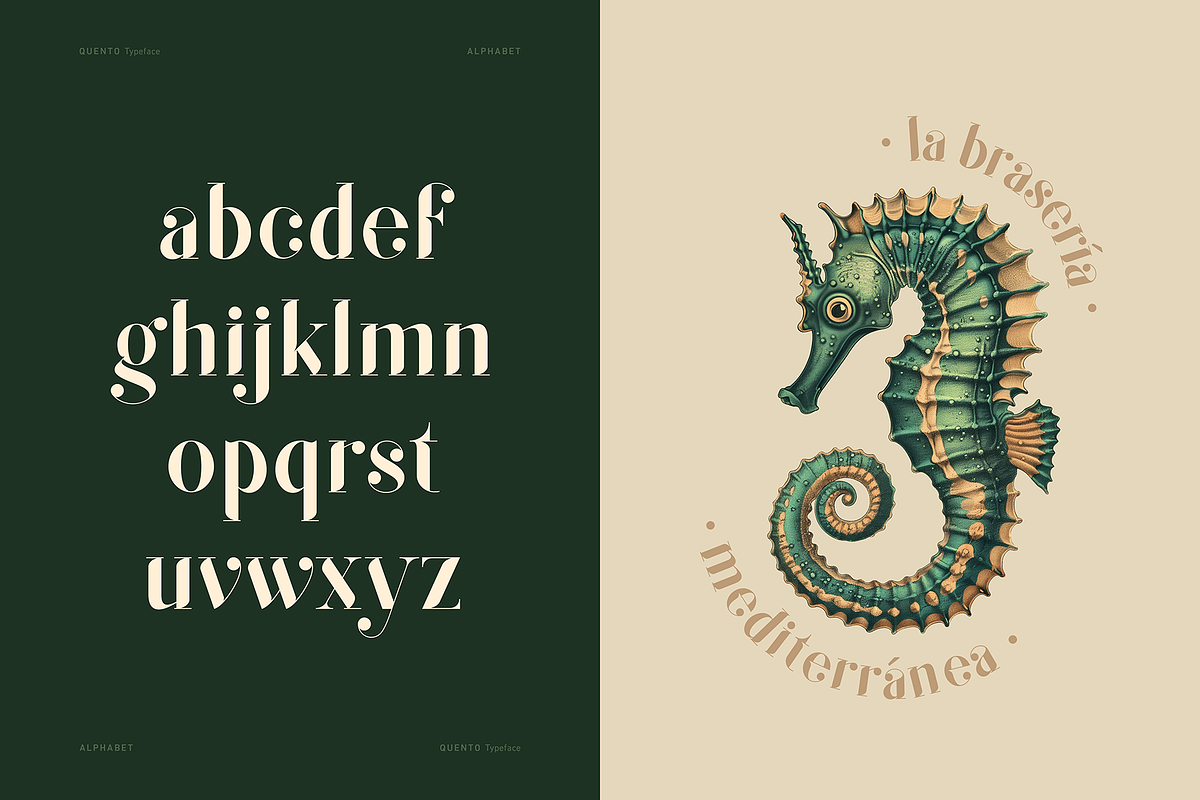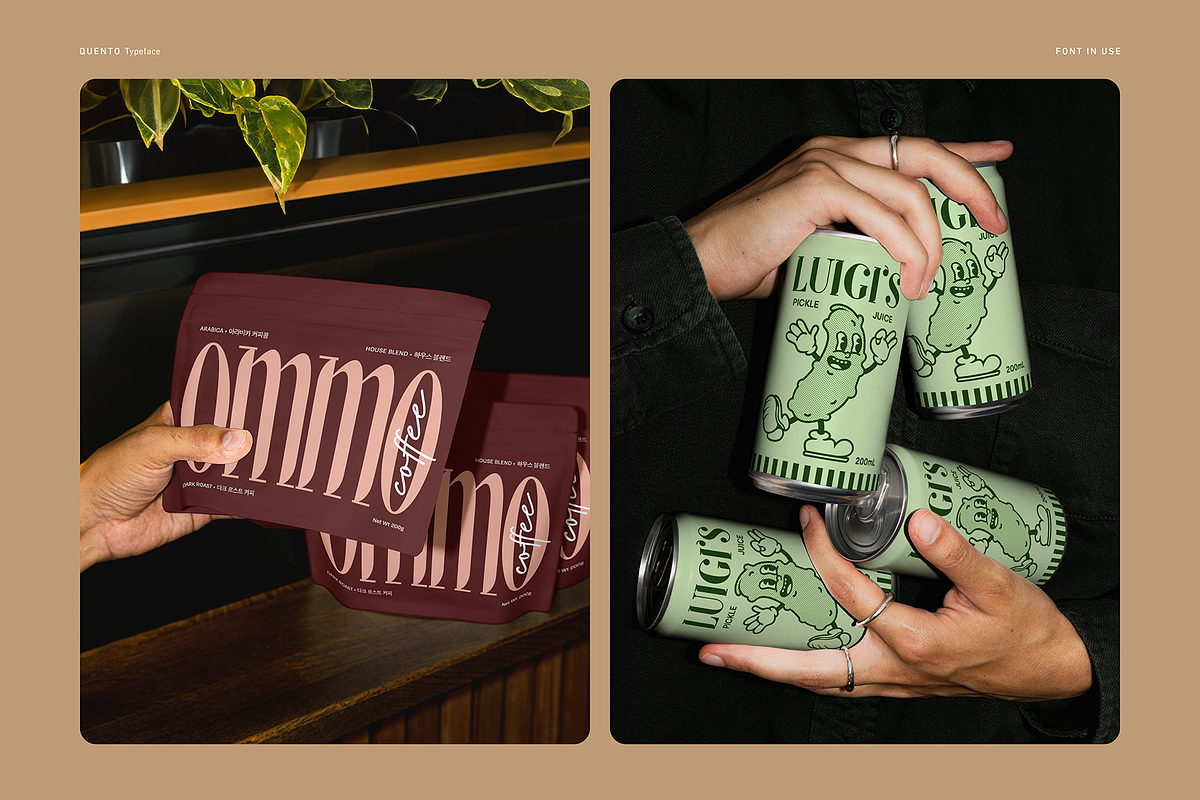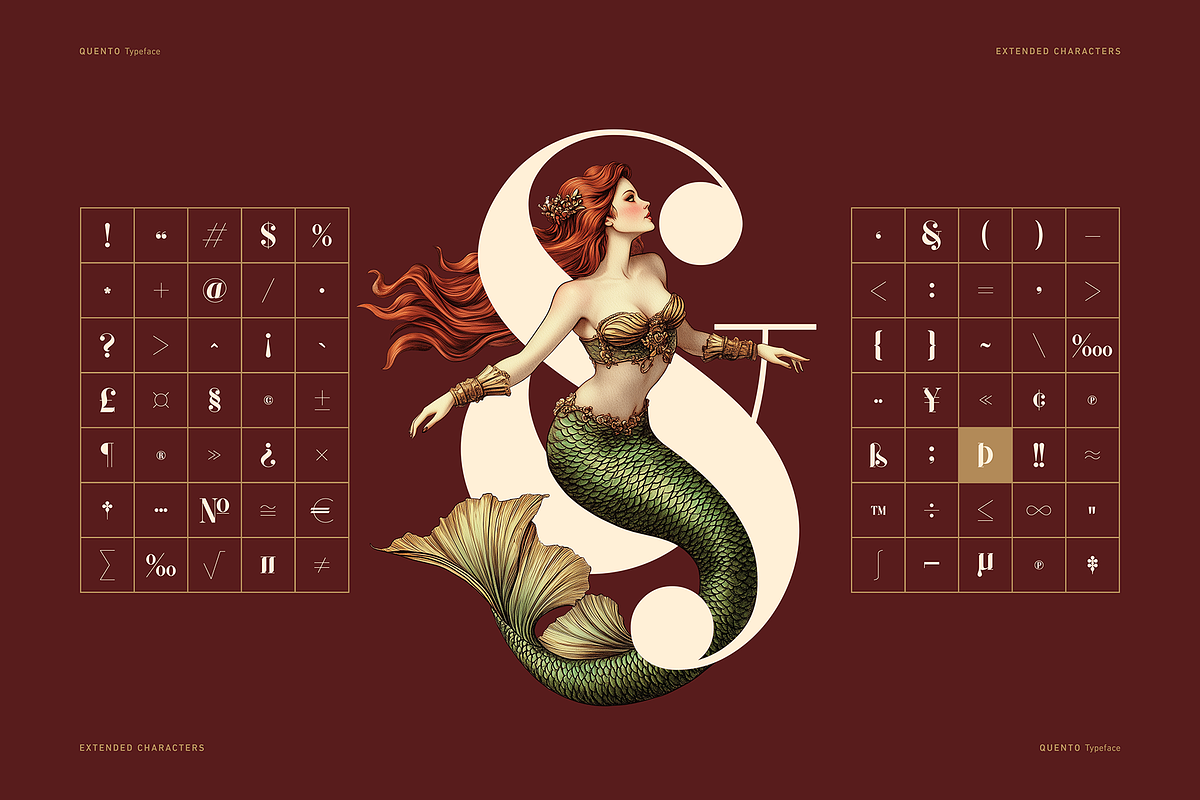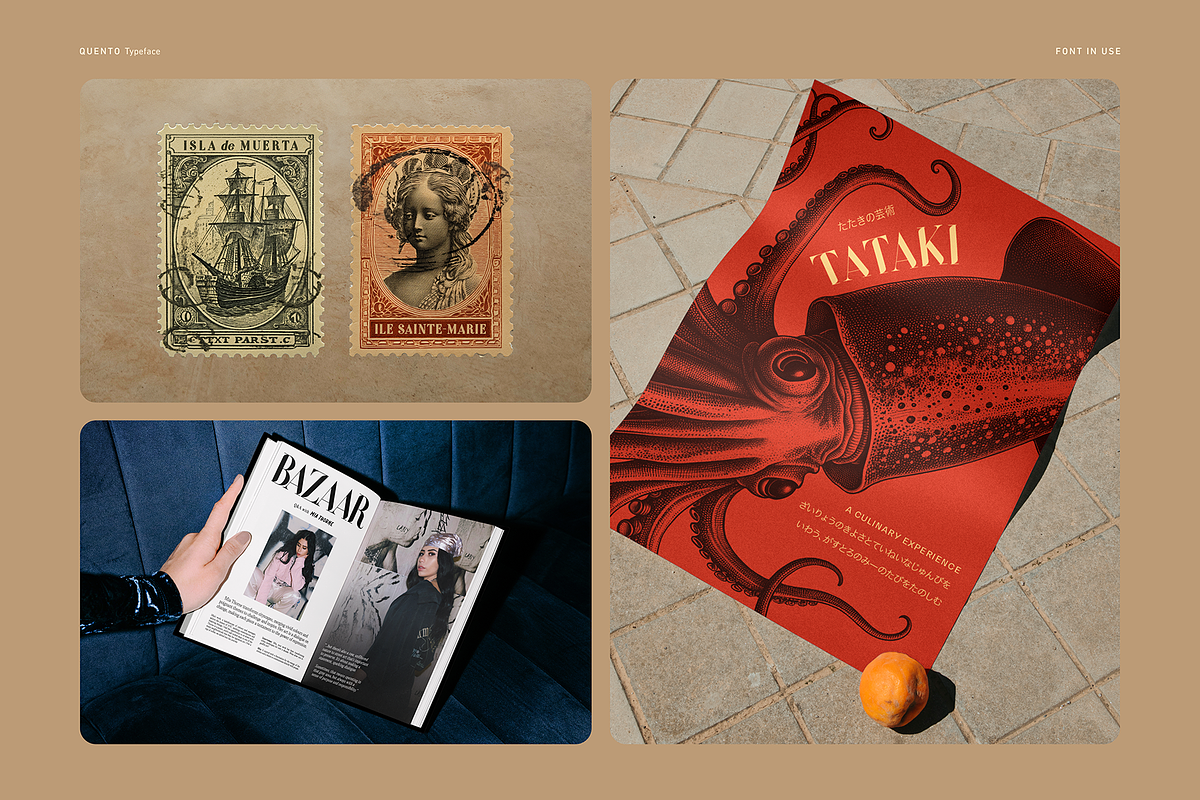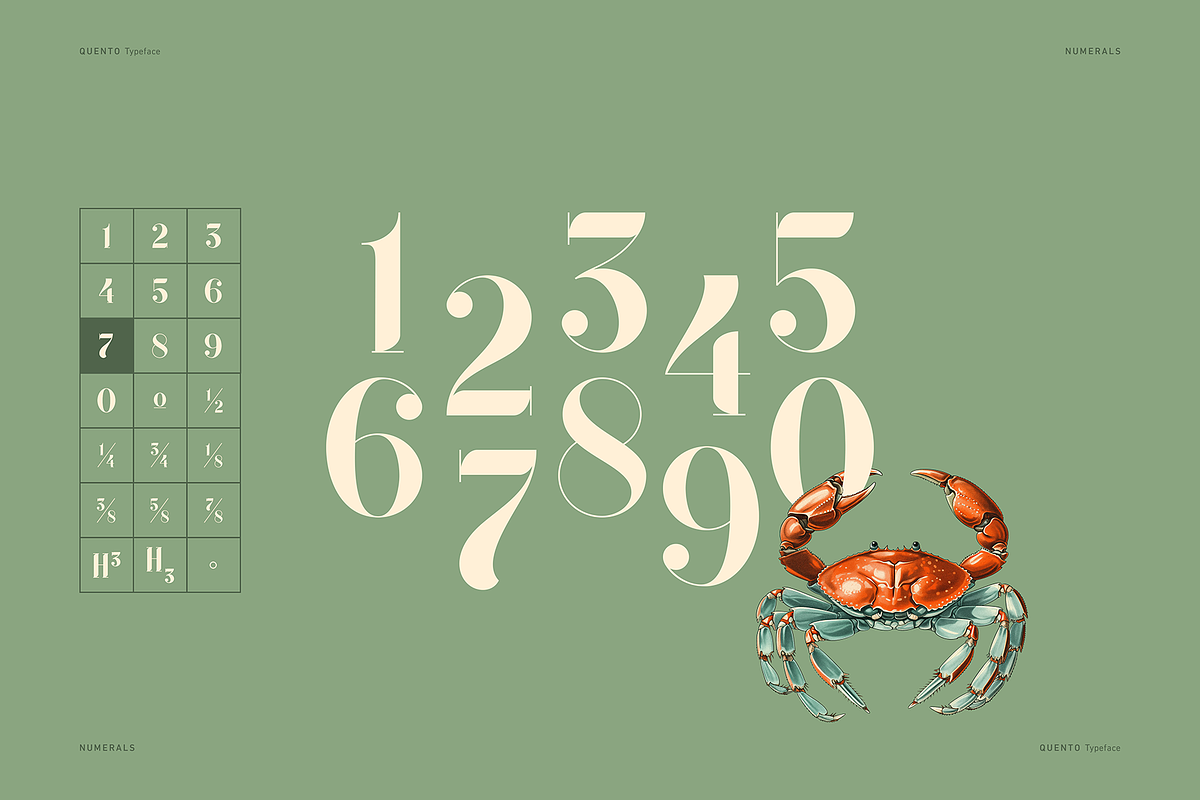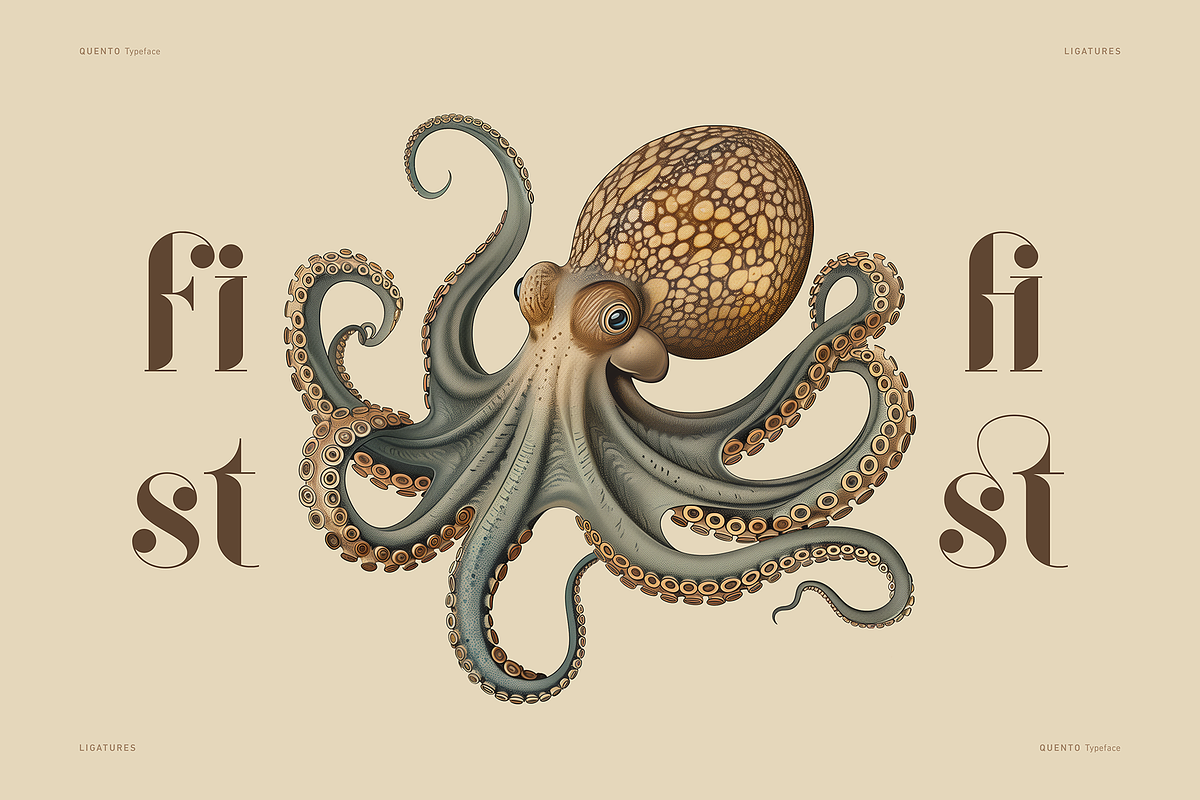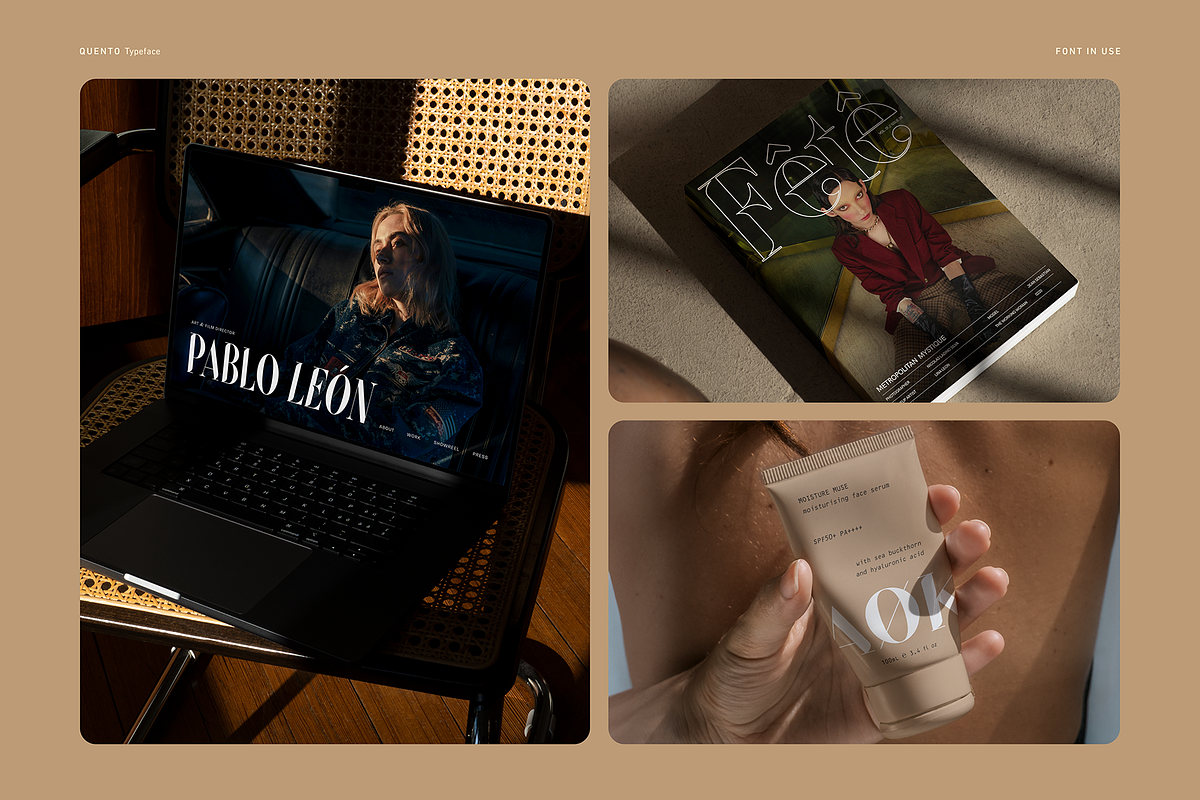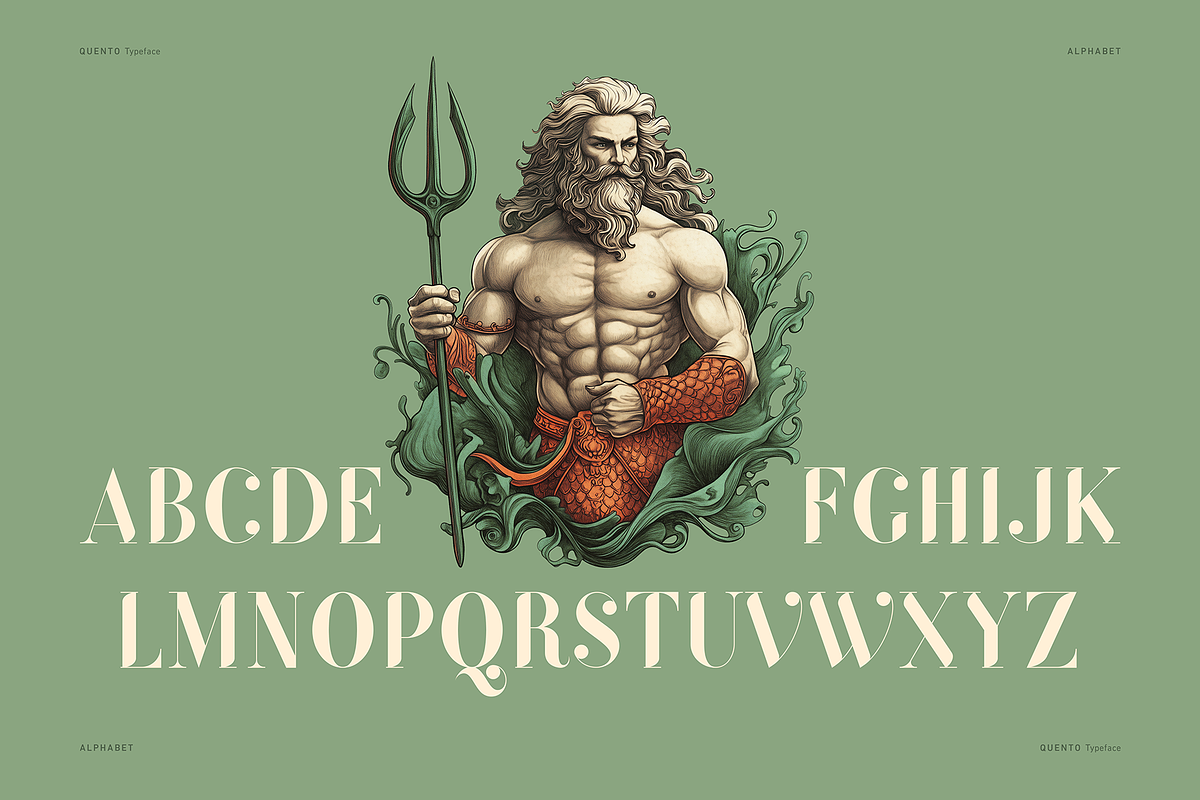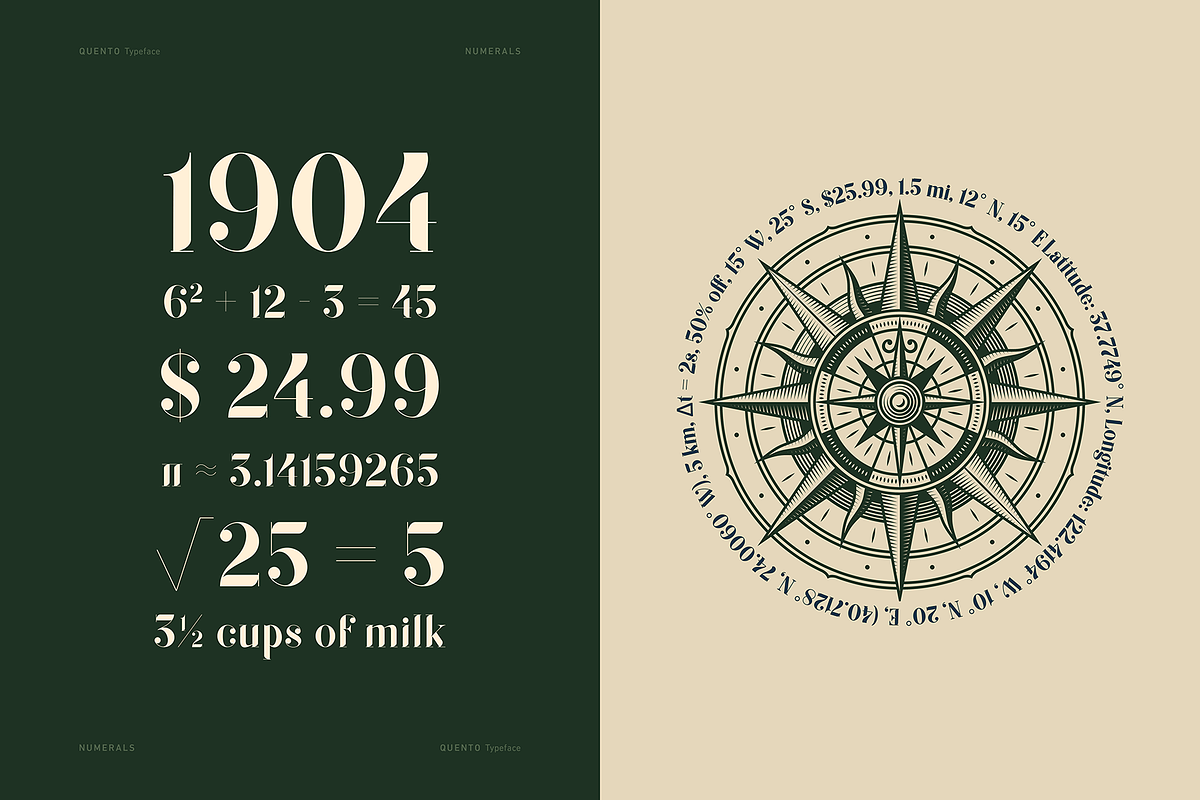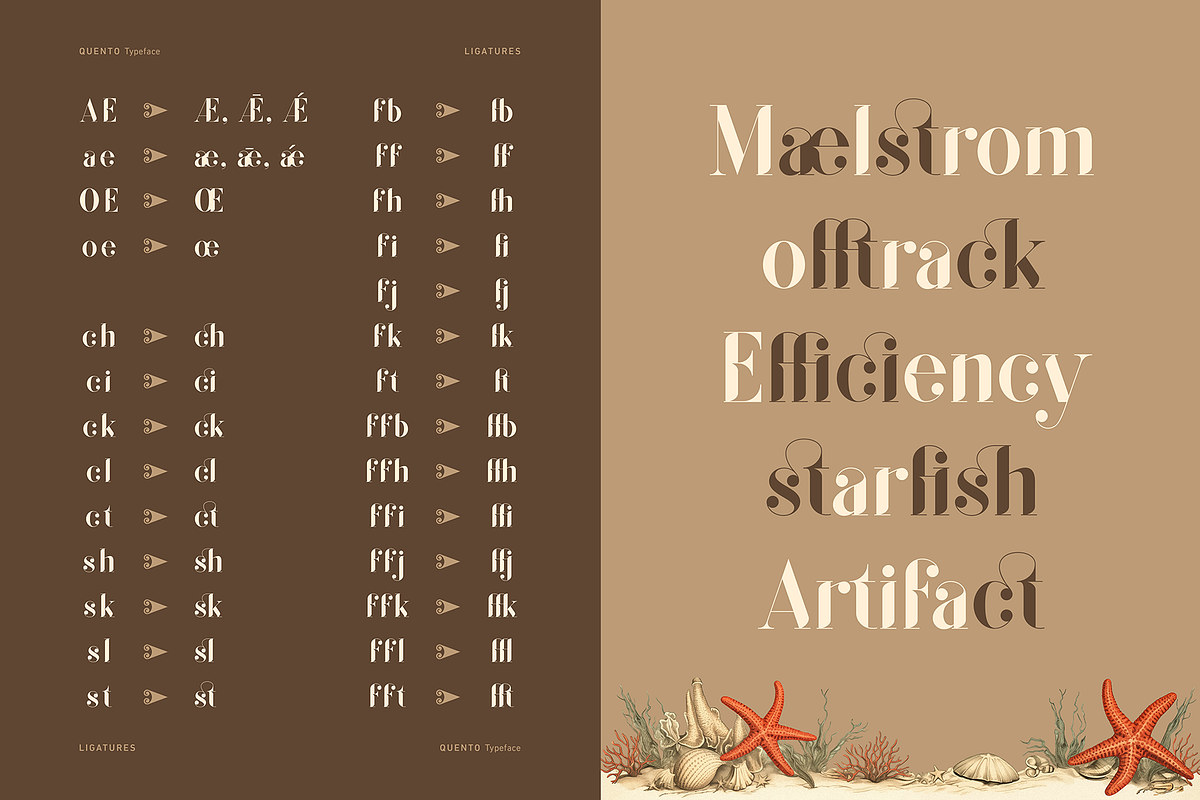
QUENTO | Modern Serif Display Font
QUENTO™ (from ‘kwento’, meaning ‘story’) is a modern serif display font that draws inspiration from the timeless elegance of Didone typefaces, designed to craft words that captivate.
With bold contrasts, delicate hairline serifs, and a strong vertical structure, QUENTO™ commands attention with refinement. Smooth curves and decorative ball terminals add ornamentation, while elongated letterforms and slender proportions create a sophisticated yet contemporary edge.
It's a single-weight, multilingual typeface with over 550 glyphs that includes:
ALPHABET, PUNCTUATION, EXTENDED CHARACTERS, ACCENTS, LIGATURES, and NUMERALS.
QUENTO™ is most suited as a decorative display font.